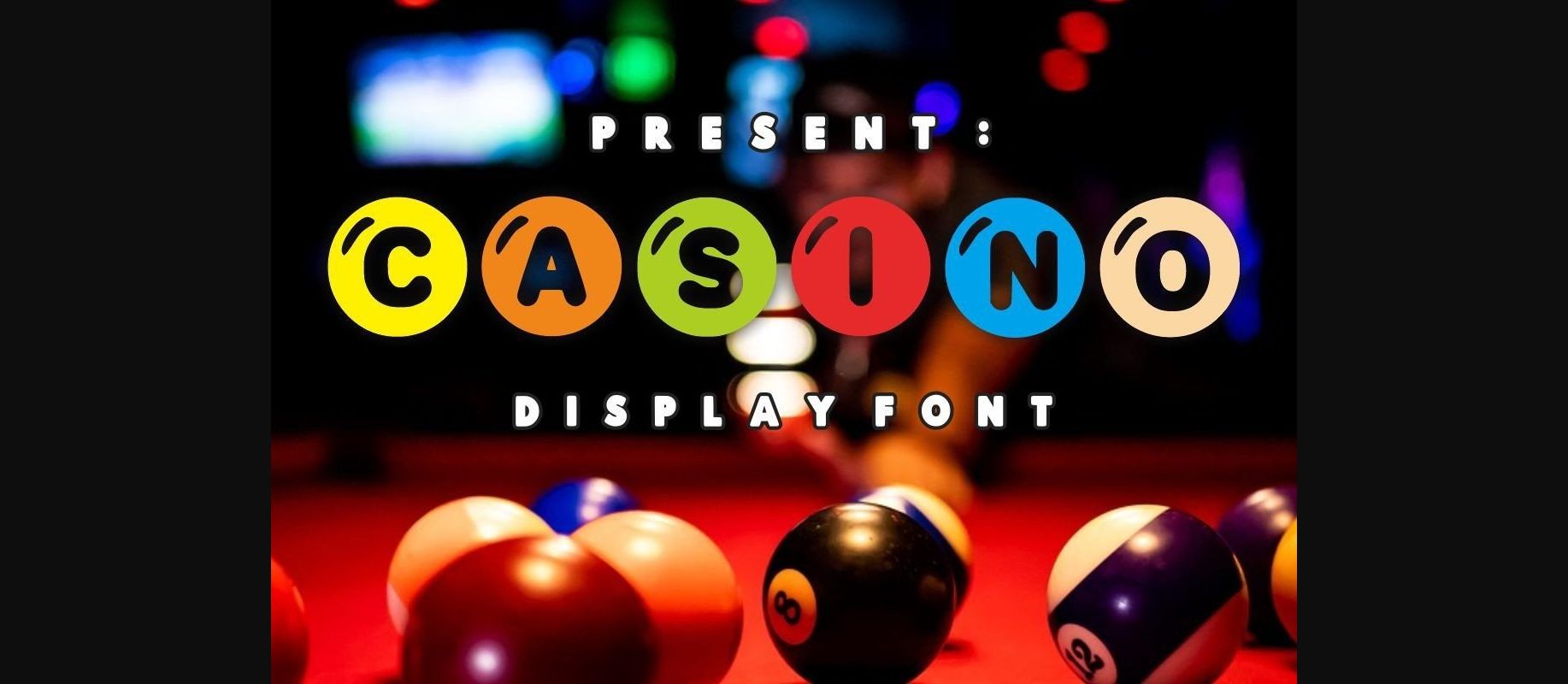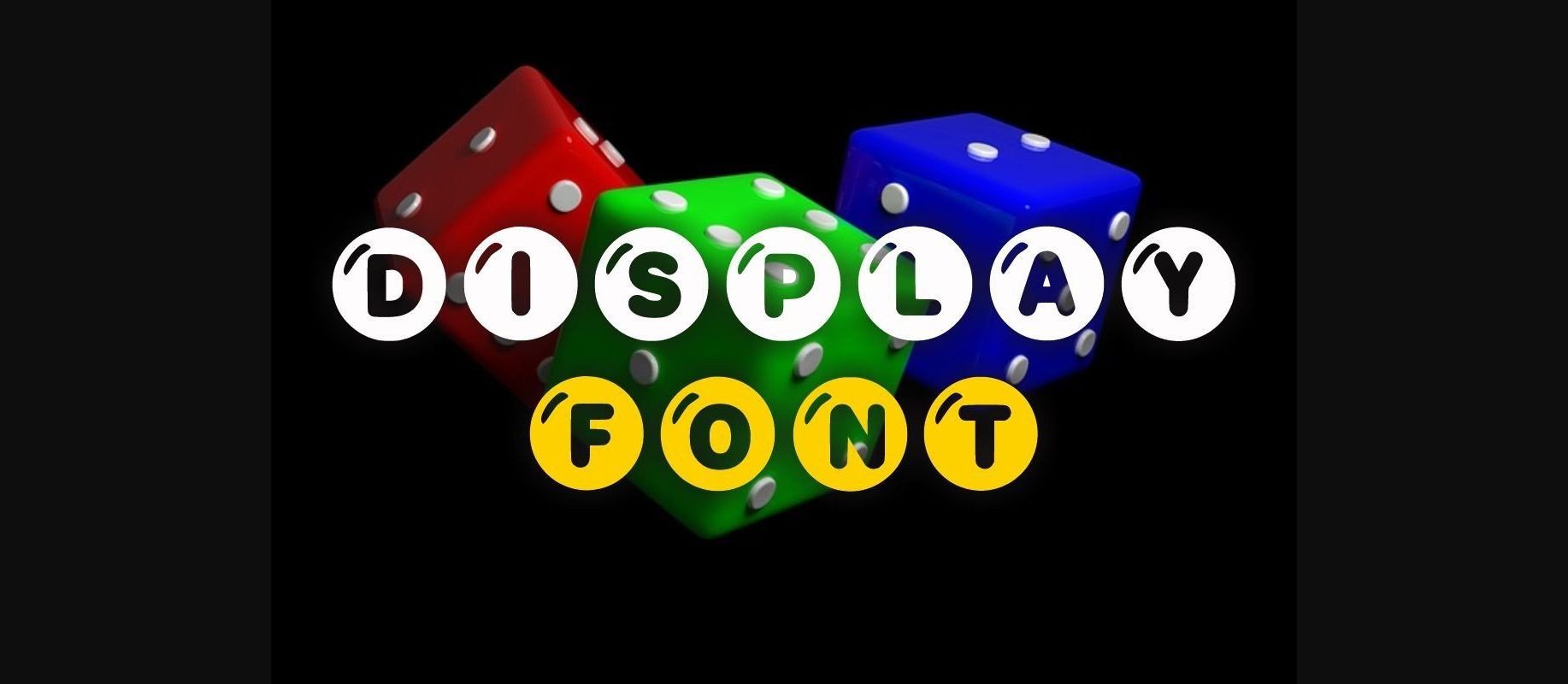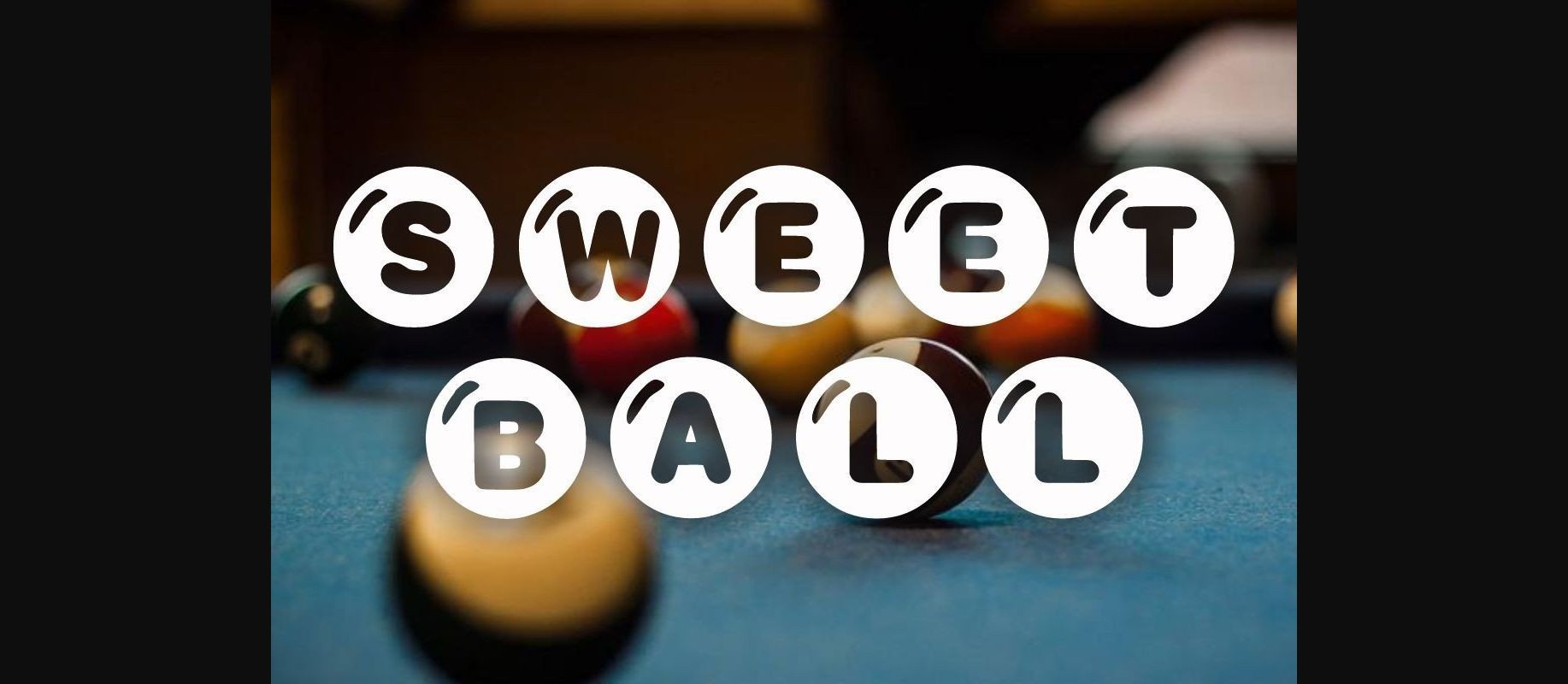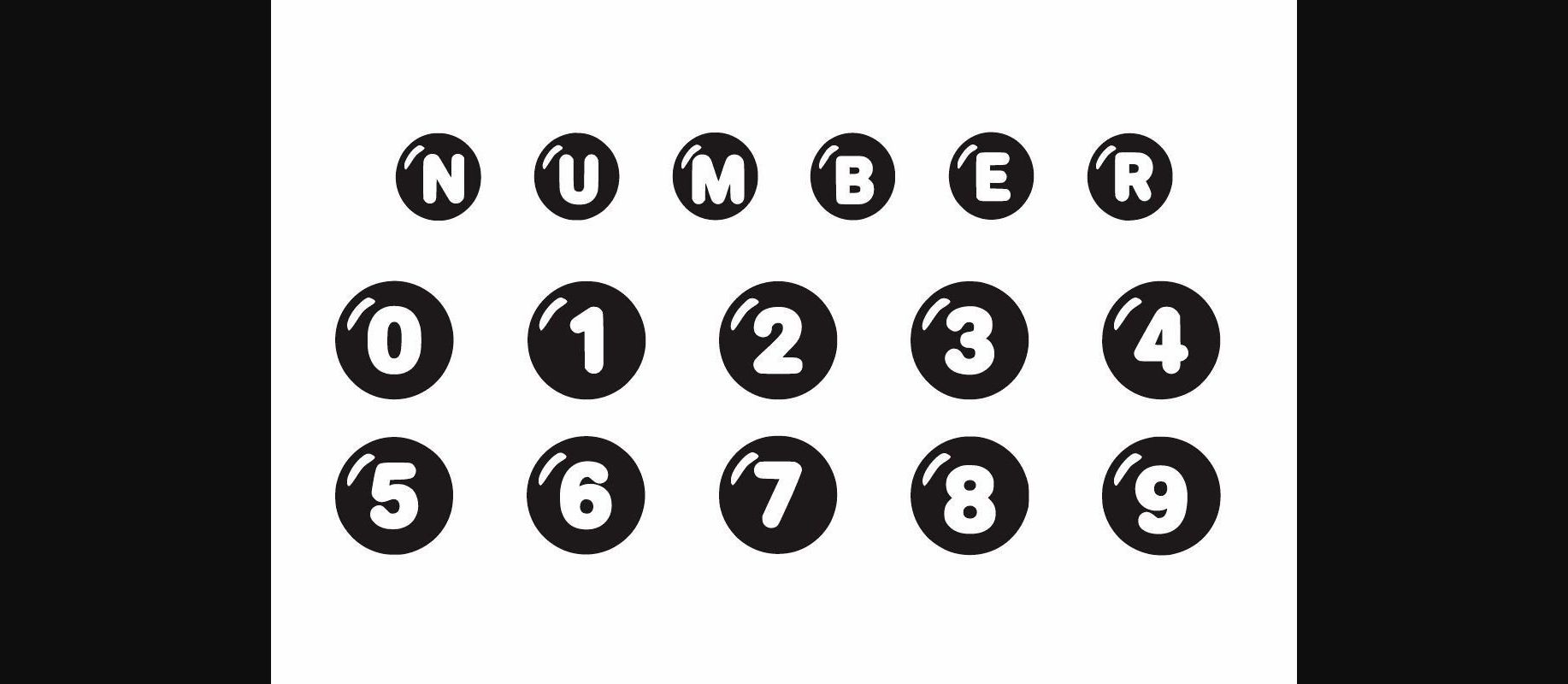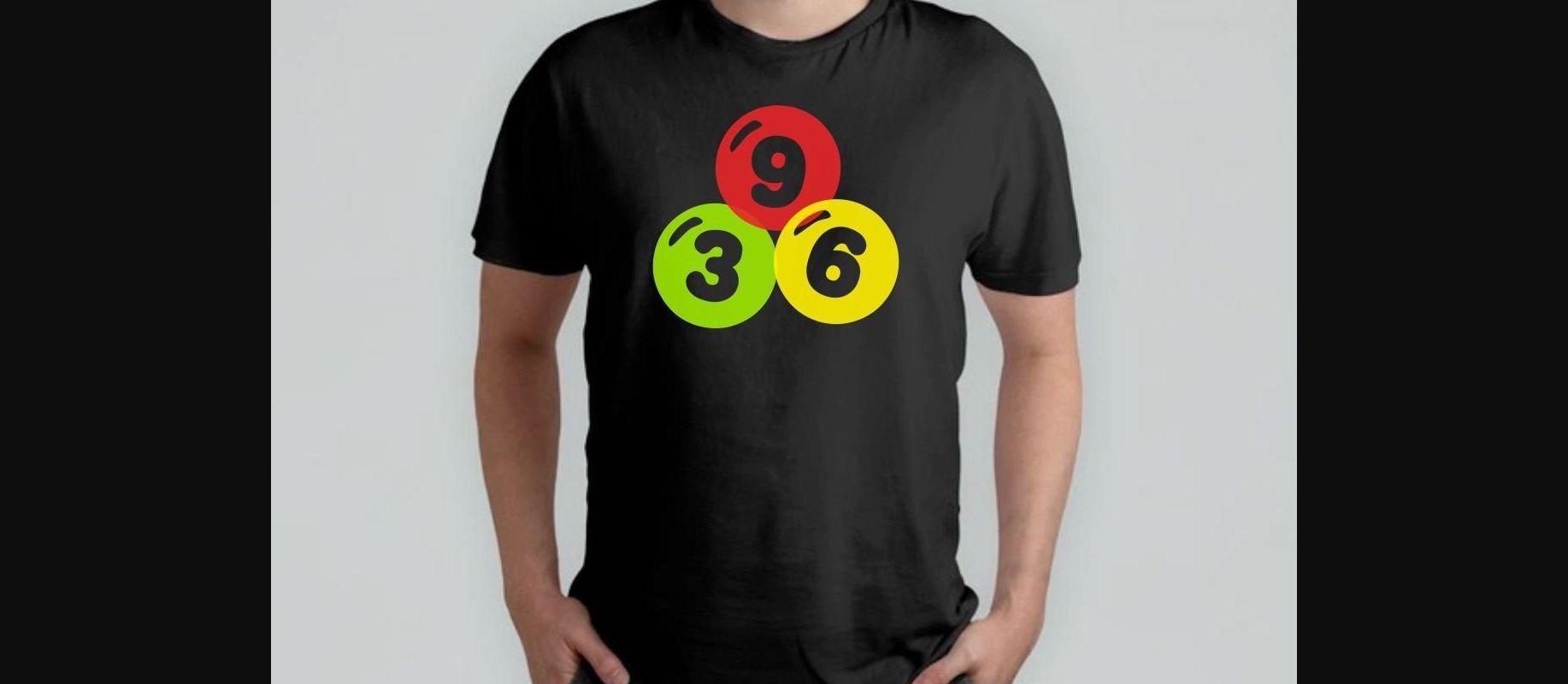
About Casino Font
CASINO is a round and fun decorative font. Add it to each of your promotion, price tag, Logo, party invitation, gathering or pretty much any design that requires a touch of youth and joy.